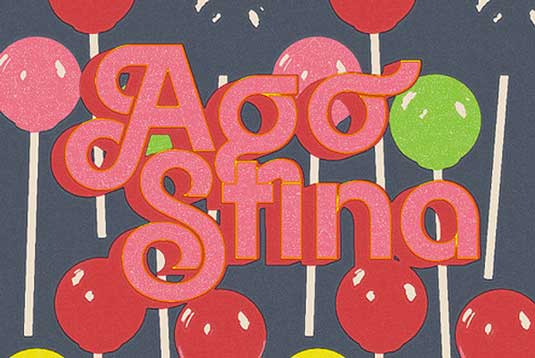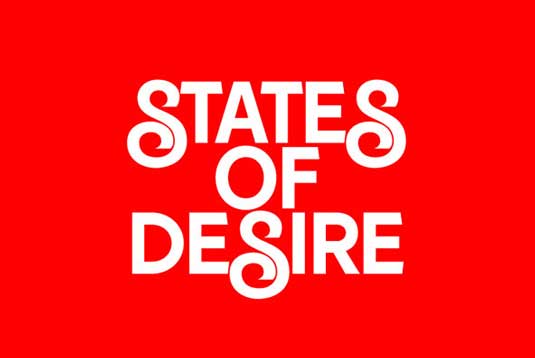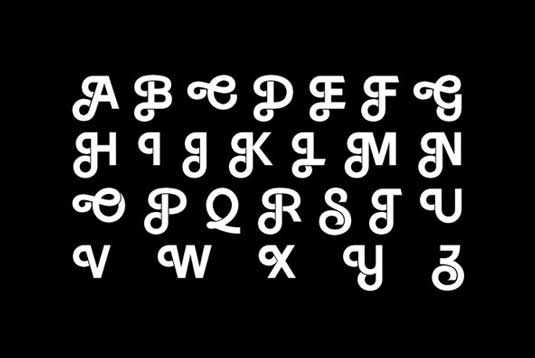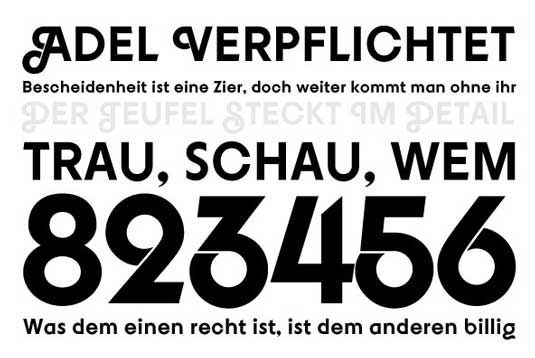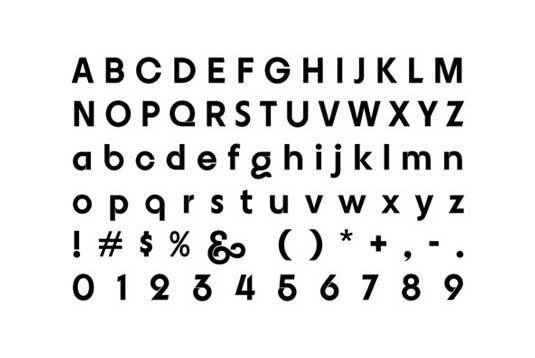
Font of the day: Agostina
Agostina by Michael Cina
This modern sans-serif typeface Agostina was designed by Michael Cina, exclusively for font shop YouWorkForThem. With almost 300 characters, this typeface contains both beginning caps and ending lowercase swash letters.